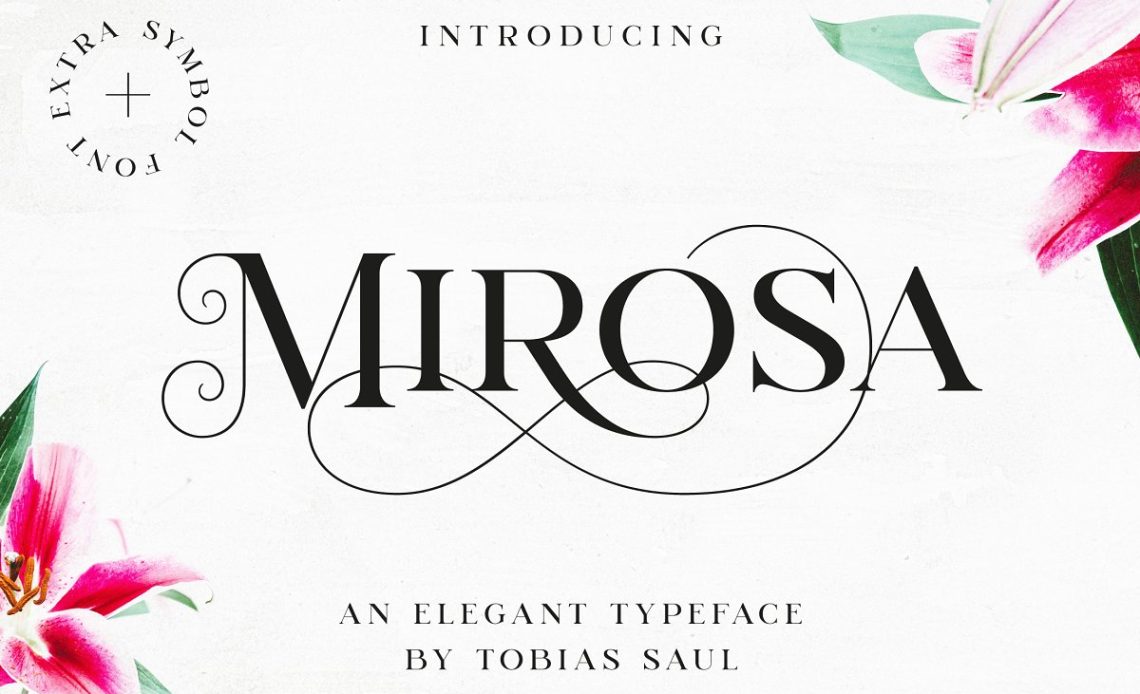
MIROSA is a modern elegant font typeface with beauty in every single letter. It contains bigger initial letters and a very huge character set with more than 400 alternates!! Mirosa allows you to create beautiful headlines, logos, and titles in just minutes. But that’s not all! Additionally, it comes with a second symbol font with 26 extra swashes. Furthermore, I included a font guide to make sure you get the most out of this product.
Font Features
– Character set A-Z with special uppercase letters
– Over 400 stylistic Alternates
– Numerals & Punctuation
– Accented Characters (West Europe)